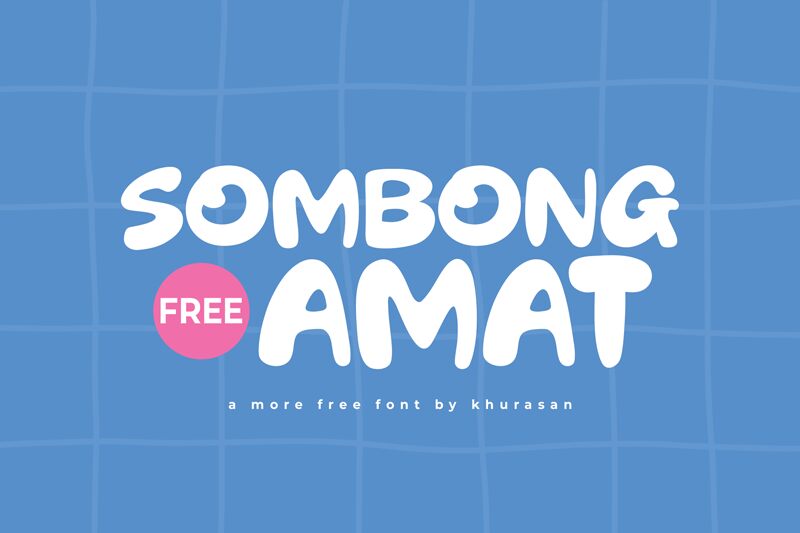
Sombong Amat
Sombong Amat font by Khurasan is a cartoon display font with a bold weight and expanded width. Cheerful, quirky, rounded, whimsical, and friendly in its appearance, the typeface can be used in all sorts of colorful designs especially for kids.
Make exceptional uses of the free font in chocolate packages, candy stickers, game interfaces, book covers, school project posters.